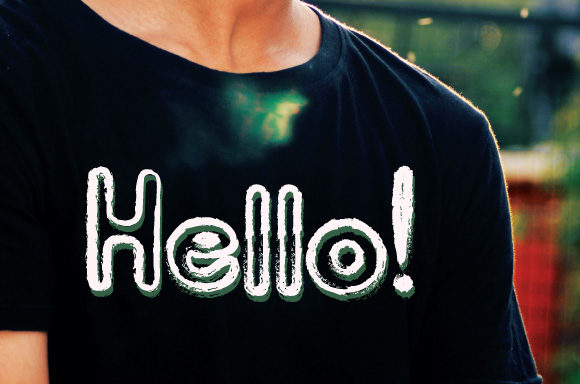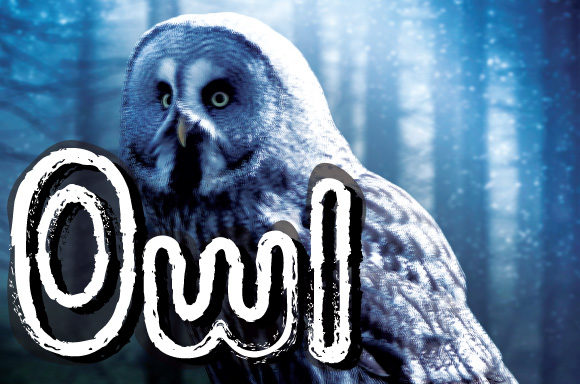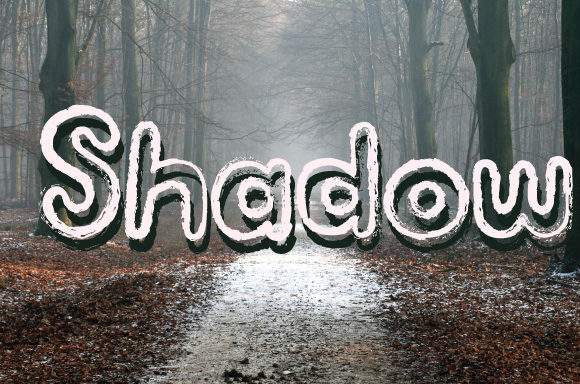
Auda Font: Elevate Your Designs with a Unique Outlined Display Font
In the world of typography, a font can make or break a design project. Auda Font is a game-changer, offering a unique outlined display font that can elevate a wide range of design projects to the highest level. Created with the help of a brush pen, Auda Font brings a touch of elegance and sophistication to any design.
What is Auda Font?
Auda Font is a carefully crafted outlined display font, designed to add a touch of personality to your designs. Its unique brush-pen style gives it a distinctive look that sets it apart from other fonts. With Auda Font, you can create stunning headings, logos, labels, and more that will leave a lasting impression on your audience.
Key Features of Auda Font
- Unique Outlined Style: Auda Font features a beautiful outlined style that adds depth and dimension to your designs.
- Brush-Pen Crafted: Created with a brush pen, Auda Font has a distinctive, hand-crafted look that gives it a personal touch.
- Versatile: Auda Font is perfect for a wide range of design projects, from branding and headings to logos and labels.
- Elegant and Sophisticated: Auda Font brings a touch of elegance and sophistication to any design, making it perfect for designers and crafters who want to create high-end designs.
Use Cases for Auda Font
Auda Font is a versatile font that can be used in a variety of design projects. Here are some use cases to get you started:
- Branding: Use Auda Font to create stunning brand logos, business cards, and letterheads that reflect your brand’s personality.
- Headings and Titles: Add a touch of elegance to your headings and titles with Auda Font, perfect for use in posters, flyers, and brochures.
- Logos and Icons: Create unique and memorable logos and icons with Auda Font, perfect for use on websites, social media, and marketing materials.
- Labels and Packaging: Use Auda Font to create eye-catching labels and packaging designs that stand out on store shelves.
Why Choose Auda Font?
With so many fonts available, why choose Auda Font? Here are just a few reasons why Auda Font stands out:
- Unique Style: Auda Font offers a unique outlined style that sets it apart from other fonts.
- High-Quality Design: Auda Font is designed with high-quality in mind, ensuring that your designs look professional and polished.
Tips for Using Auda Font
Here are some tips for getting the most out of Auda Font:
- Experiment with Colors: Auda Font looks great in a variety of colors, so don’t be afraid to experiment and find the perfect color scheme for your design.
- Play with Sizes: Auda Font can be used in a range of sizes, from small labels to large headings, so experiment with different sizes to find the perfect fit for your design.
- Combine with Other Fonts: Auda Font pairs well with other fonts, so try combining it with other fonts to create a unique and interesting design.
Auda Font is a unique and versatile outlined display font that can elevate a wide range of design projects to the highest level. With its brush-pen crafted style and elegant, sophisticated look, Auda Font is perfect for designers and crafters who want to create high-end designs. Whether you’re working on branding, headings, logos, labels, or more, Auda Font is a great choice. So why not give it a try and see the difference it can make in your designs?